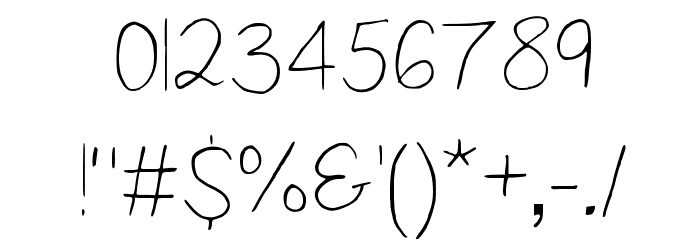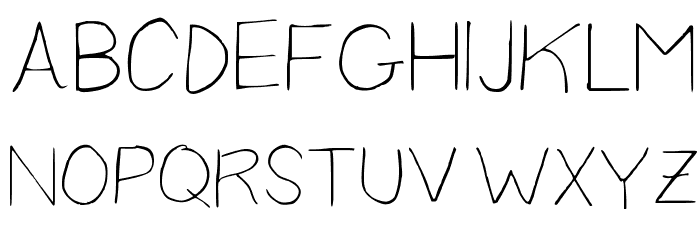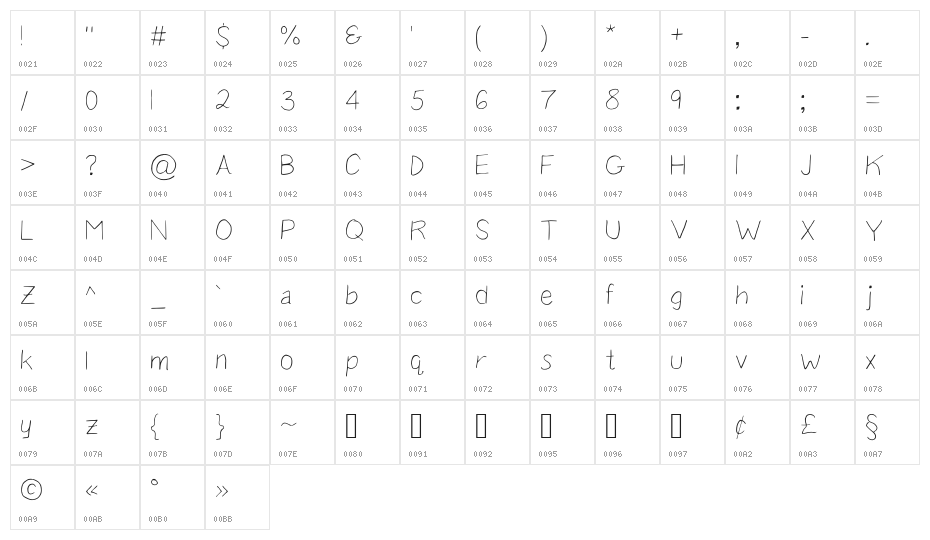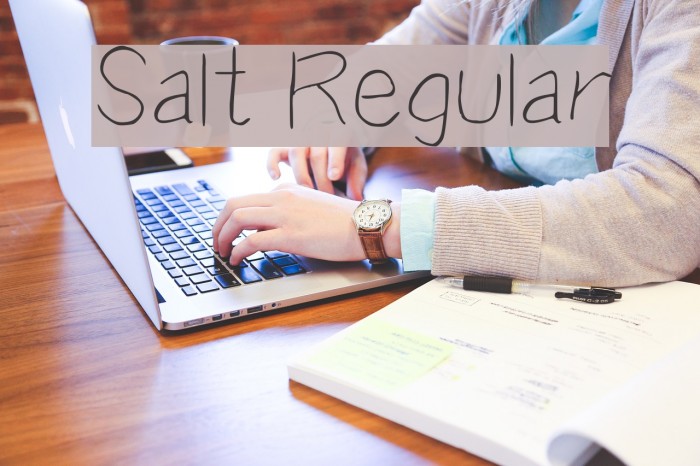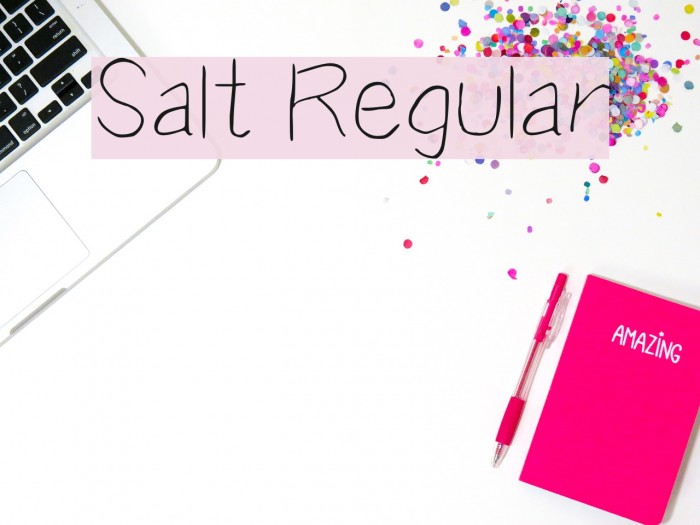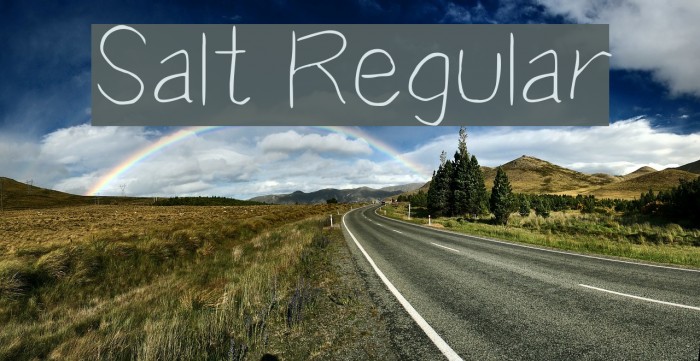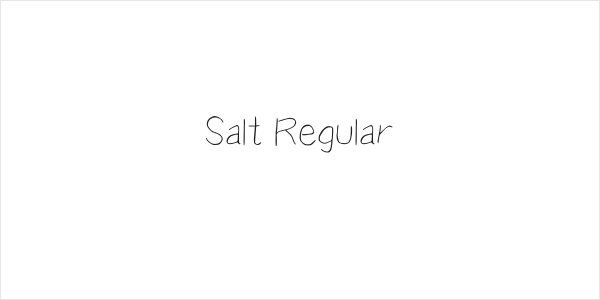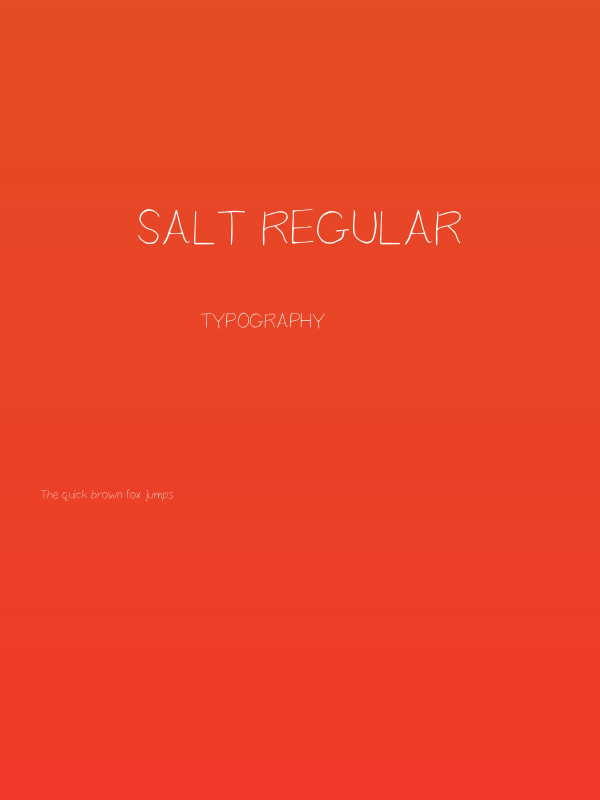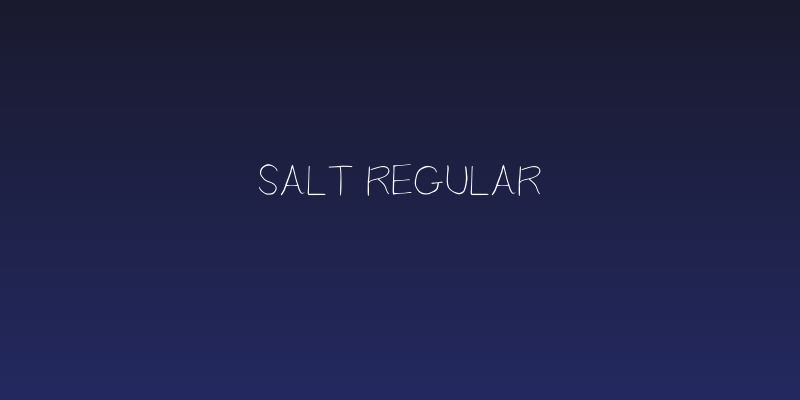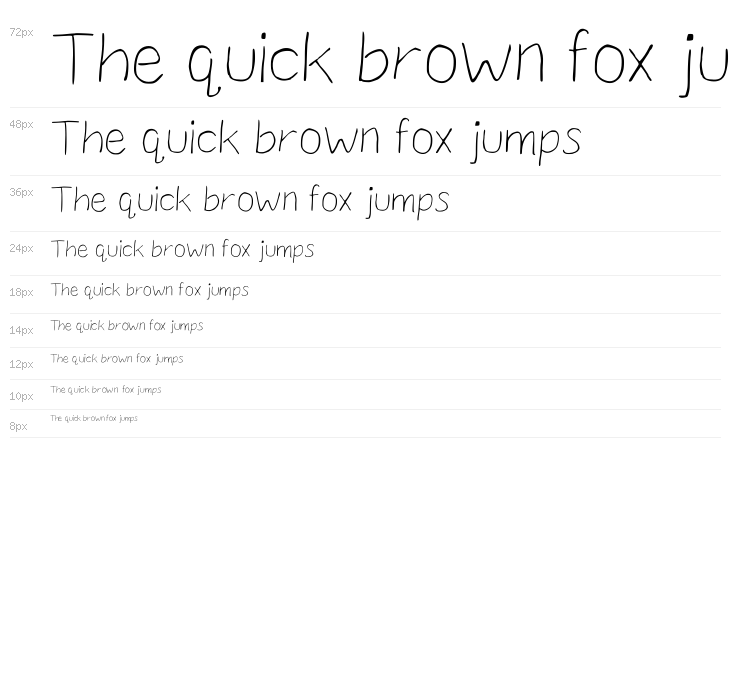
Salt Regular Font
Salt Regular Description
This font features a playful and casual handwritten style, characterized by its thin, slightly irregular strokes that give it a personal and informal feel. The letters are tall and narrow, with a consistent height across both uppercase and lowercase characters. The strokes have a slight wobble, adding to the hand-drawn aesthetic. The numerals and special characters maintain the same whimsical quality, ensuring a cohesive look throughout. This font is ideal for projects that require a touch of personality and charm.
| Proposed Projects | Ideal for greeting cards, personal blogs, children's books, and informal branding. |